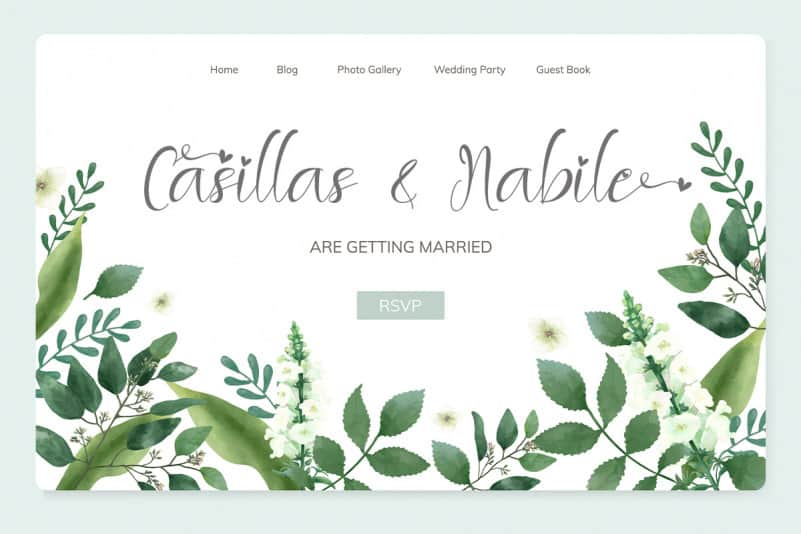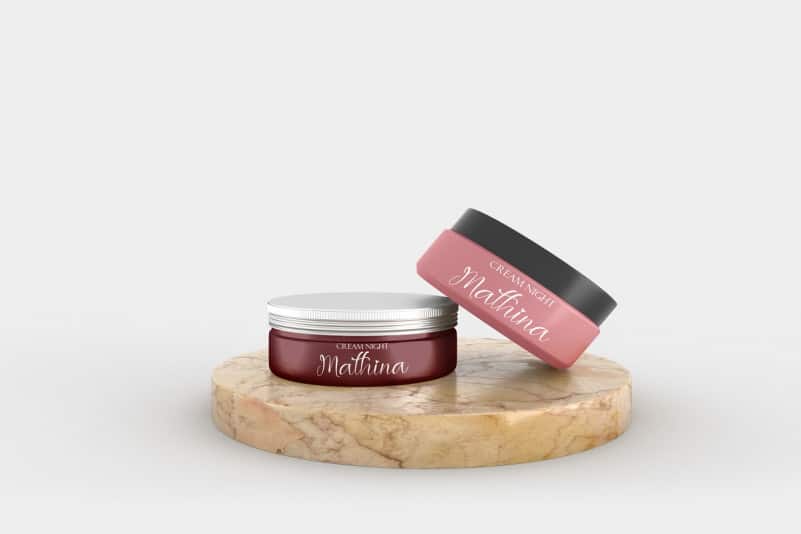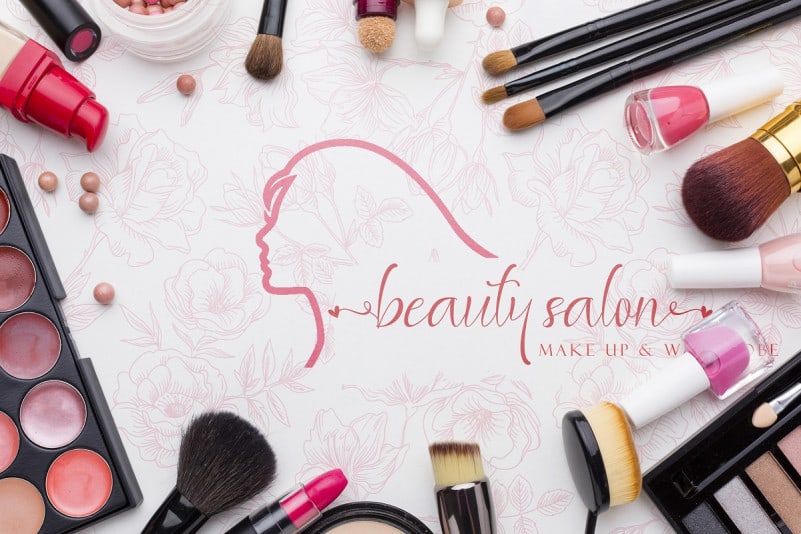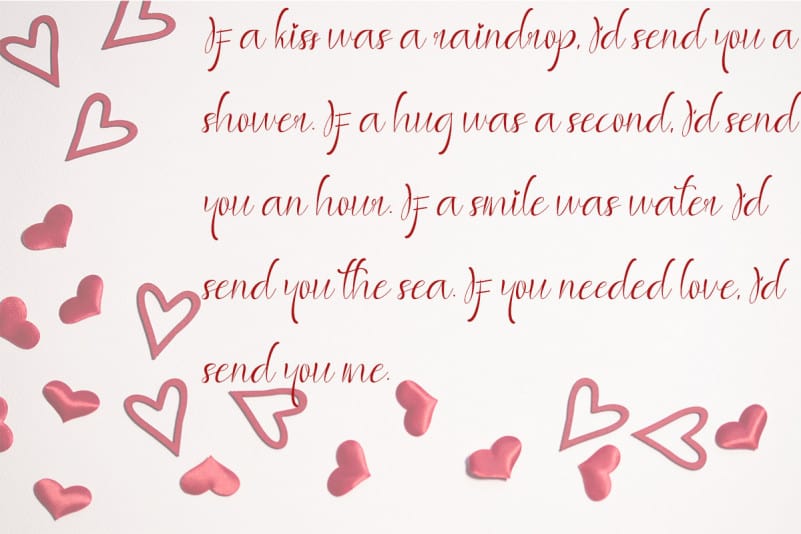
Amantha Calligraphy Font
Amantha Calligraphy Font is a font that is very unique in shape, and has swashes and alternates that are very beautiful and pretty. Alternates from this font are very easy to use. Suitable for your romantic moments, Valentine’s Day celebrations, weddings, business, promotions, quotes, social media updates, invitations, logos, branding, banners, and more.